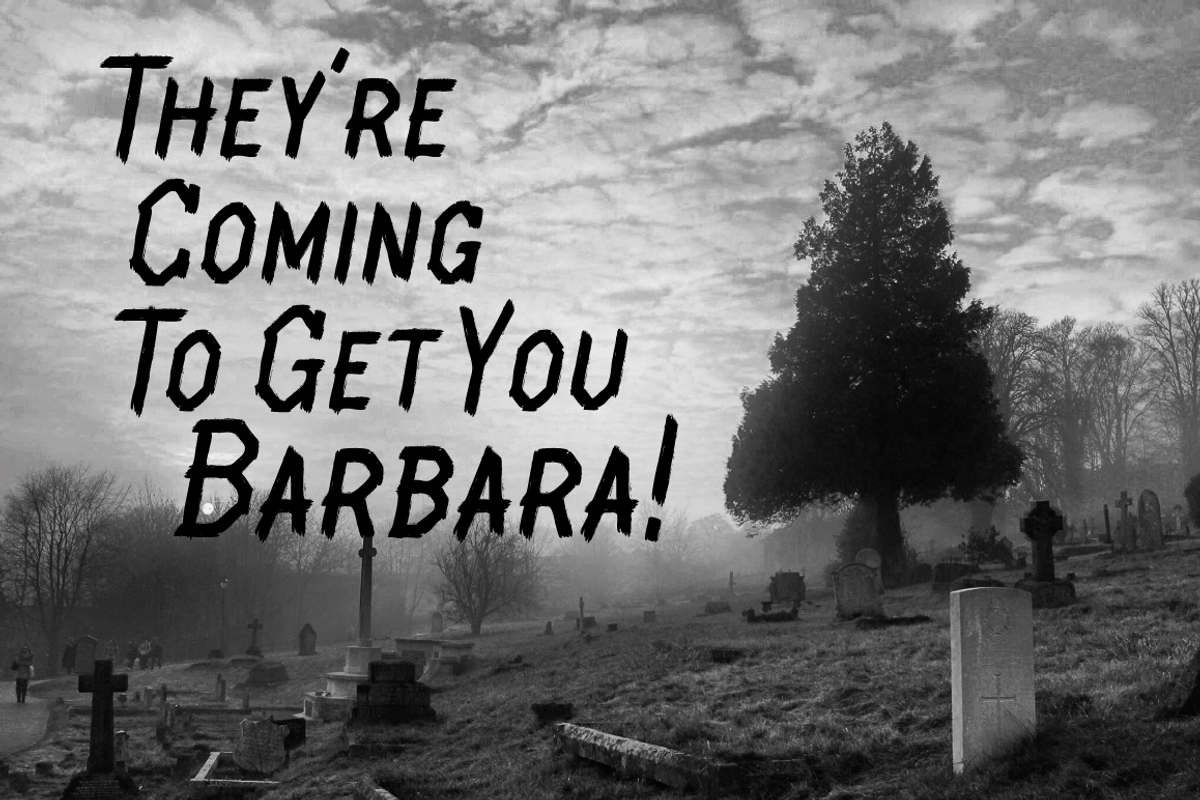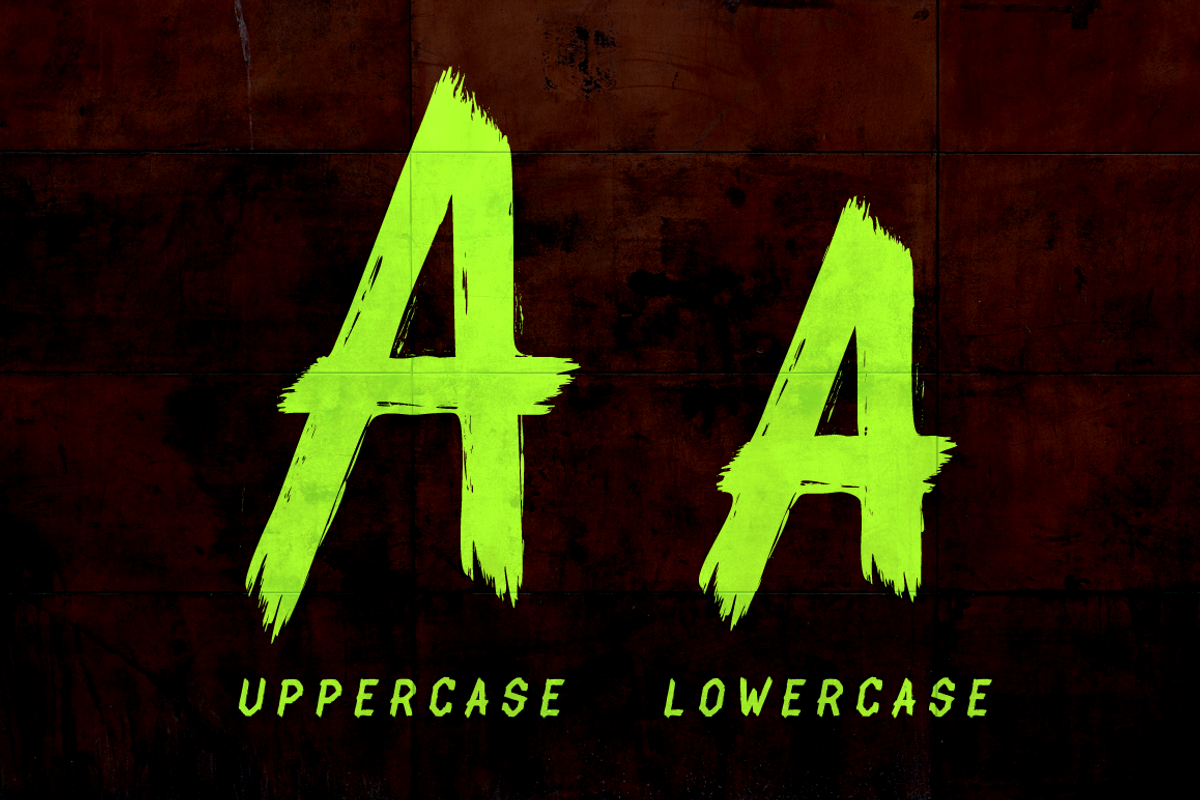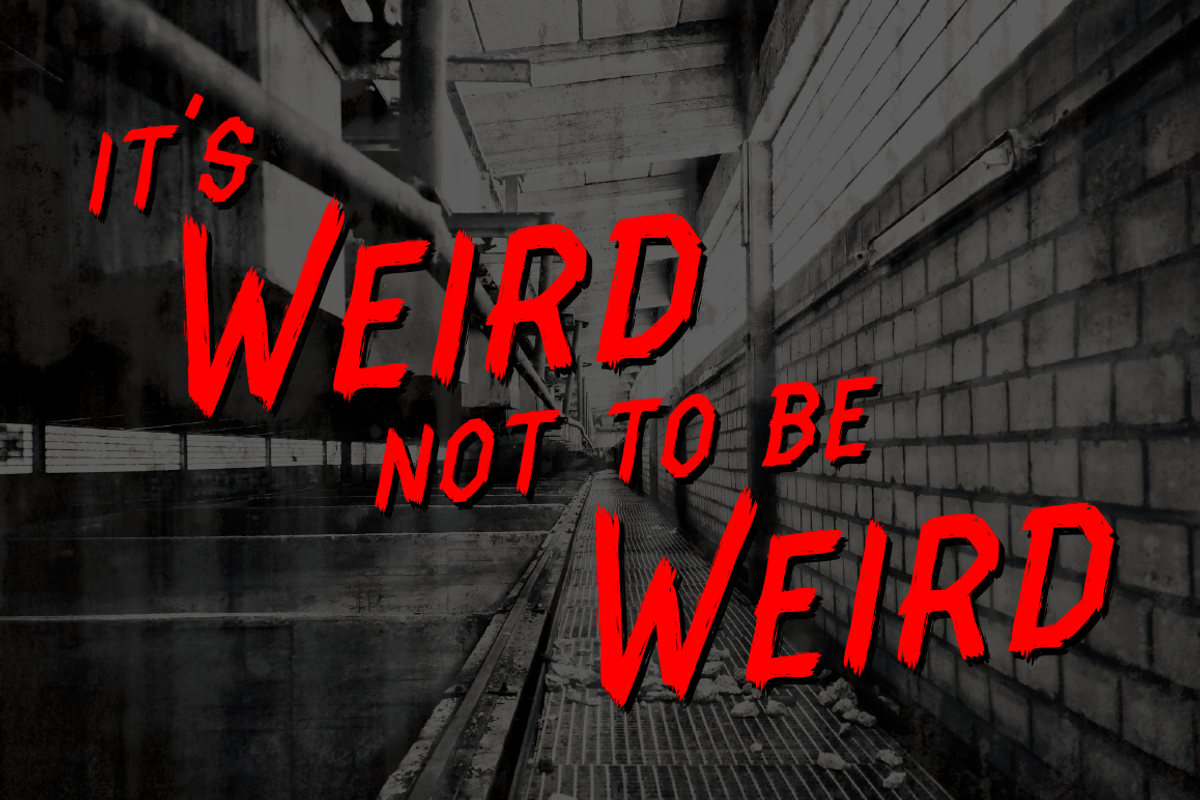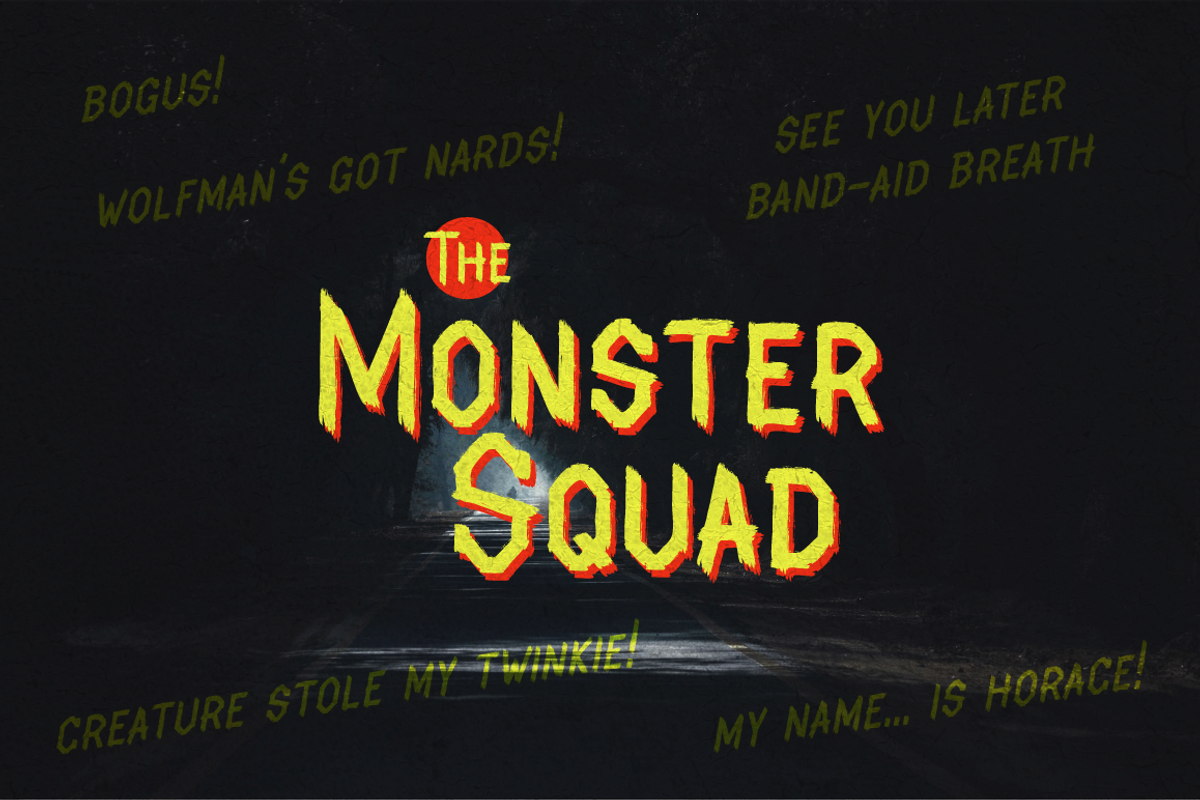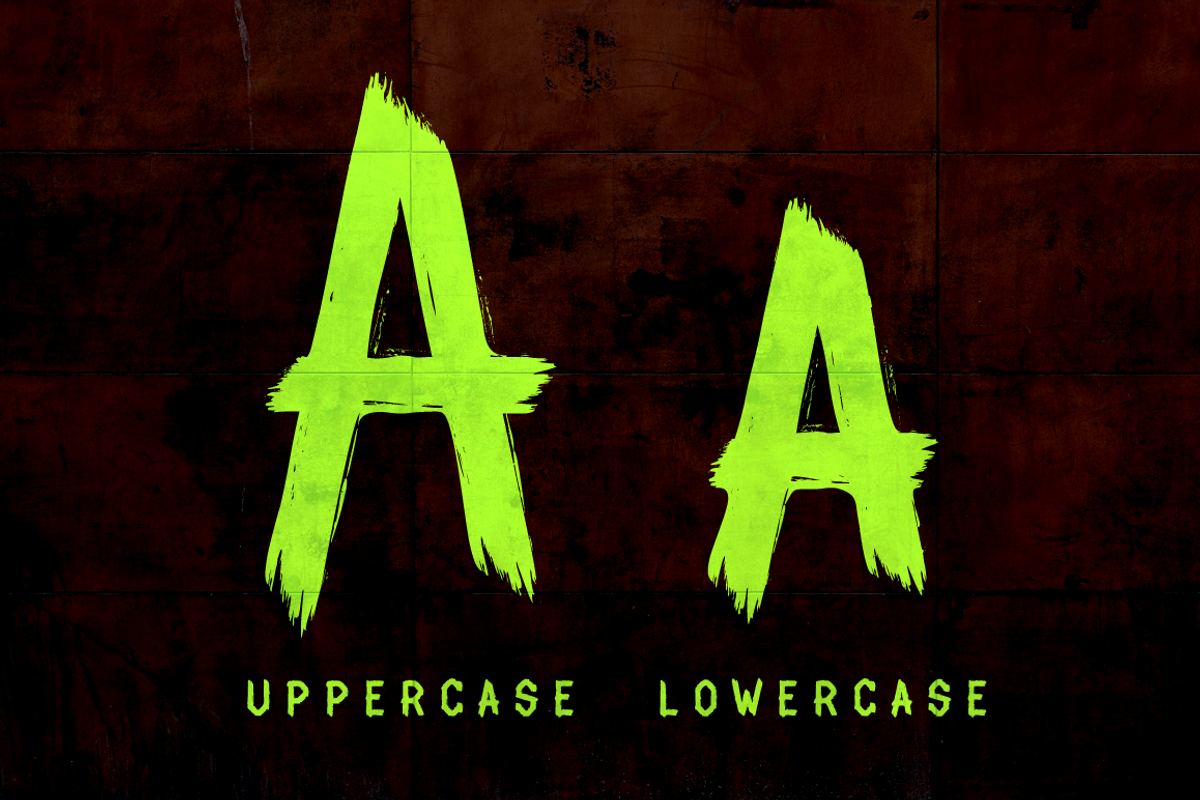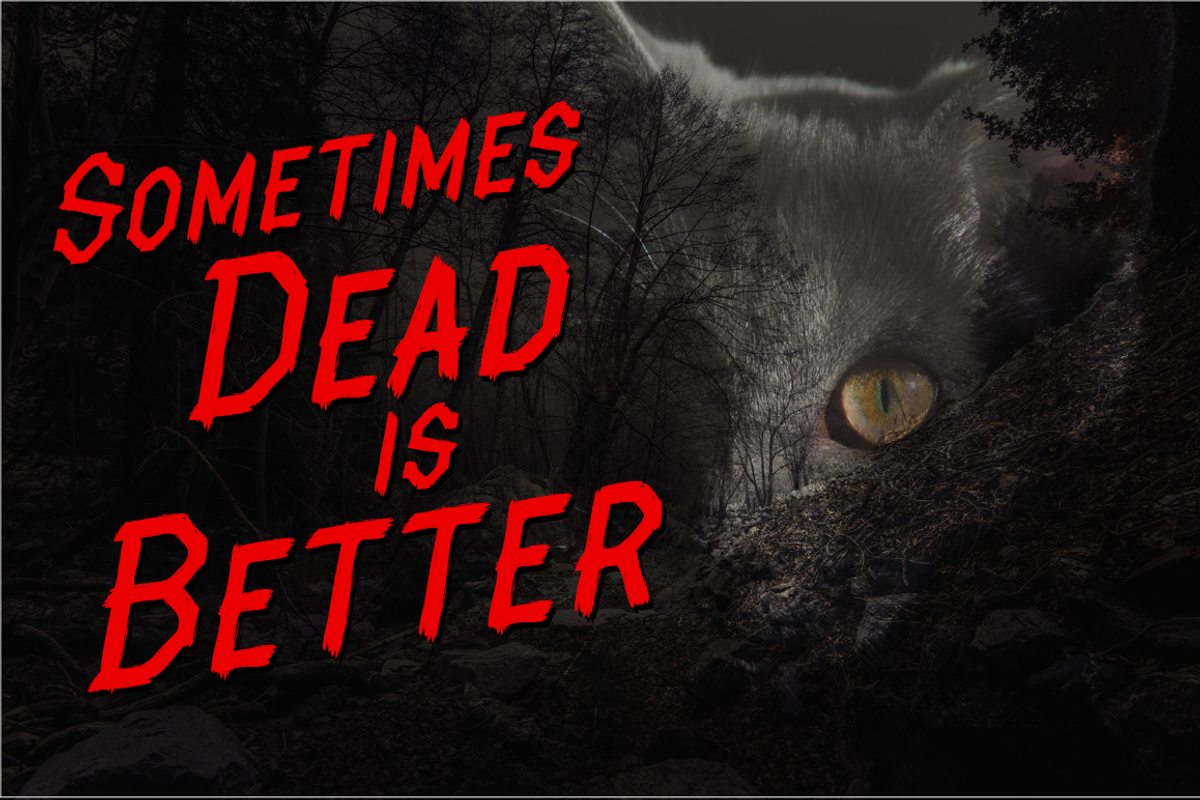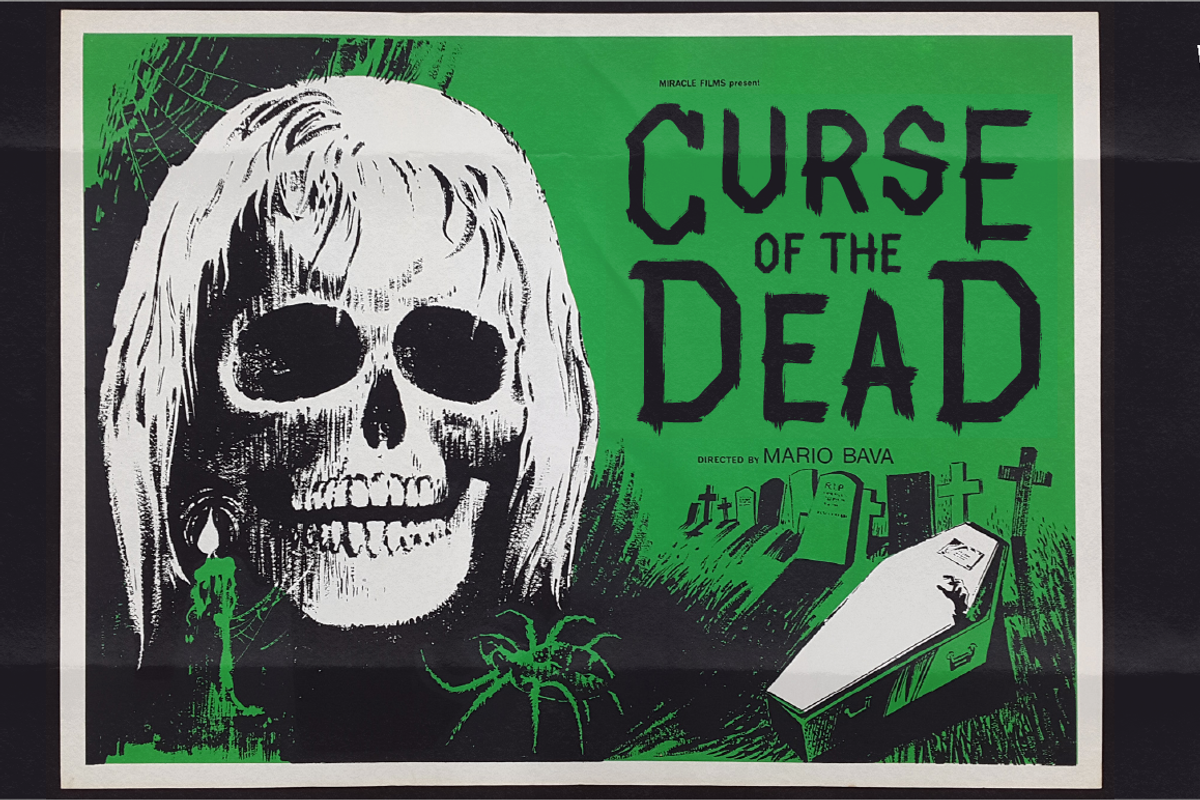
Spookhaus Horror Brush Font
Spookhaus is a horror brush font inspired by vintage horror movie posters.
Perfect for Horror and Halloween themed projects as well as band logos & flyers, t-shirt designs, and more.
Spookhaus features Regular & Italic versions both including capitals, lower caps, numerals, and punctuation.